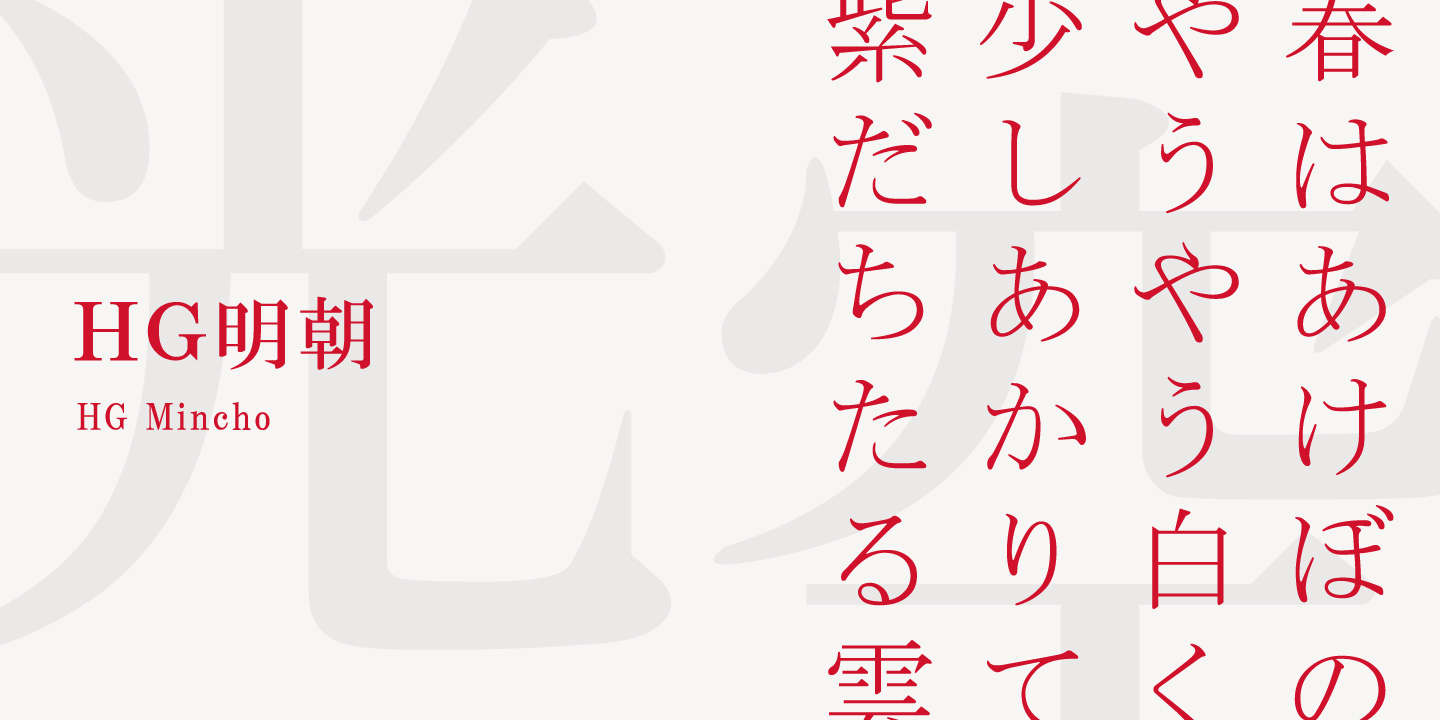
HG Mincho Font is perfect for traditional Japanese publications, academic journals, formal documents, cultural heritage projects, educational materials, literary publications, ceremonial invitations, authentic restaurant menus, traditional business communications, and cultural institution branding. This sophisticated typeface excels in environments where classical Japanese typography traditions and cultural authenticity are paramount.
What makes HG Mincho Font exciting is its masterful preservation of traditional Japanese calligraphic principles while ensuring perfect compatibility with modern digital systems. The font features elegant brushstroke characteristics that honor centuries-old Japanese writing traditions while maintaining exceptional readability across contemporary applications. This harmonious blend of cultural heritage and technological precision makes it ideal for organizations seeking to convey respect for tradition, elegance, and cultural sophistication.
HG Mincho Font family includes Light, Regular, Medium, Bold, Extra Bold, and Traditional variants. Each weight maintains the font's distinctive Japanese aesthetic while offering comprehensive flexibility for both horizontal and vertical text layouts, essential for authentic Japanese typography applications and maintaining cultural integrity.
The HG Mincho Font Free Download offers designers access to a premium Japanese typeface that represents the pinnacle of traditional Mincho styling adapted for modern use. This font's cultural authenticity and technical excellence make it particularly valuable for educational institutions, cultural organizations, and businesses requiring authentic Japanese typography for international markets.
Typography specialists recognize the font's superior implementation of traditional Japanese design principles, including proper stroke weight relationships, authentic character proportions, and optimized spacing that respects classical Japanese aesthetic standards while ensuring contemporary functionality and international compatibility.
When implementing HG Mincho Font in design projects, the results consistently demonstrate both cultural authenticity and professional quality. The font's traditional yet accessible personality makes it particularly effective for brands in education, culture, hospitality, and international business where Japanese heritage and sophistication are essential brand attributes.
For digital environments, HG Mincho Font renders beautifully across all platforms, maintaining its intricate traditional details and cultural integrity from mobile interfaces to large-scale digital displays while preserving authentic Japanese typography standards.
Creative professionals consistently select HG Mincho Font for projects requiring authentic Japanese typography and cultural sensitivity, where modern fonts cannot capture the desired traditional elegance and respect for Japanese cultural heritage and artistic traditions.